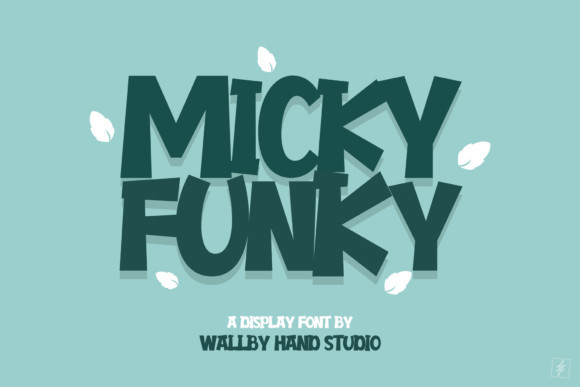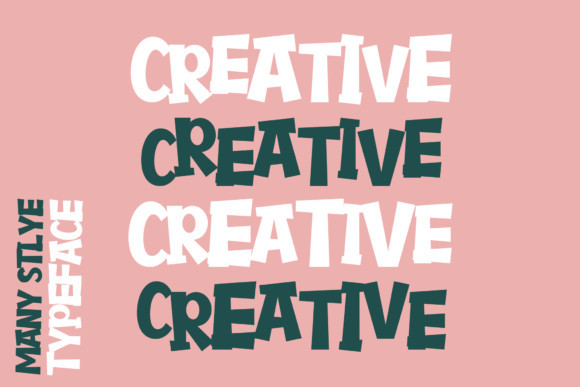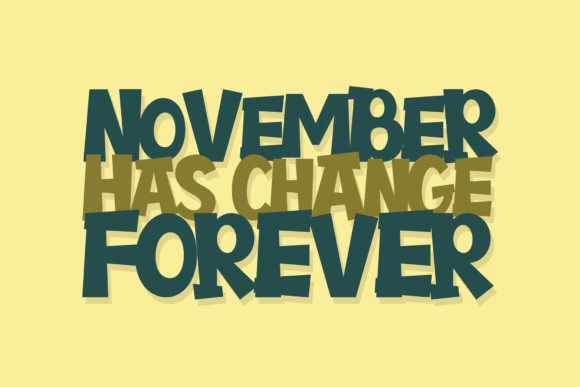
Micky Funky Font
Micky Funky is a cute and chunky lettered display font. It has a unique style and is ideal for children themed designs, especially when combined with bright colors.